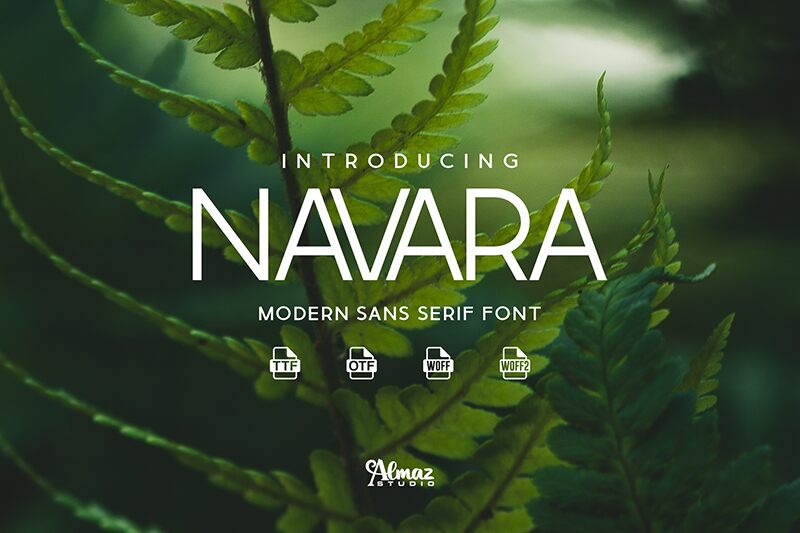
Navara
Navara font designed by Almaz Studio is a modern geometric sans-serif whose unique glyph combinations make it smooth and fluid. Although slightly condensed, the typeface still retains excellent legibility and doesn’t overburden designs with unnecessary decoration or ornamentation.
With the combination of light and regular weights in three styles: upright, italic, and outlined; Navara is a versatile tool for many design scenarios. Use this premium resource freely in branding, logos, movies sub-titles, web interfaces, books, newspapers headings/paragraphs (both printed or digital), posters…